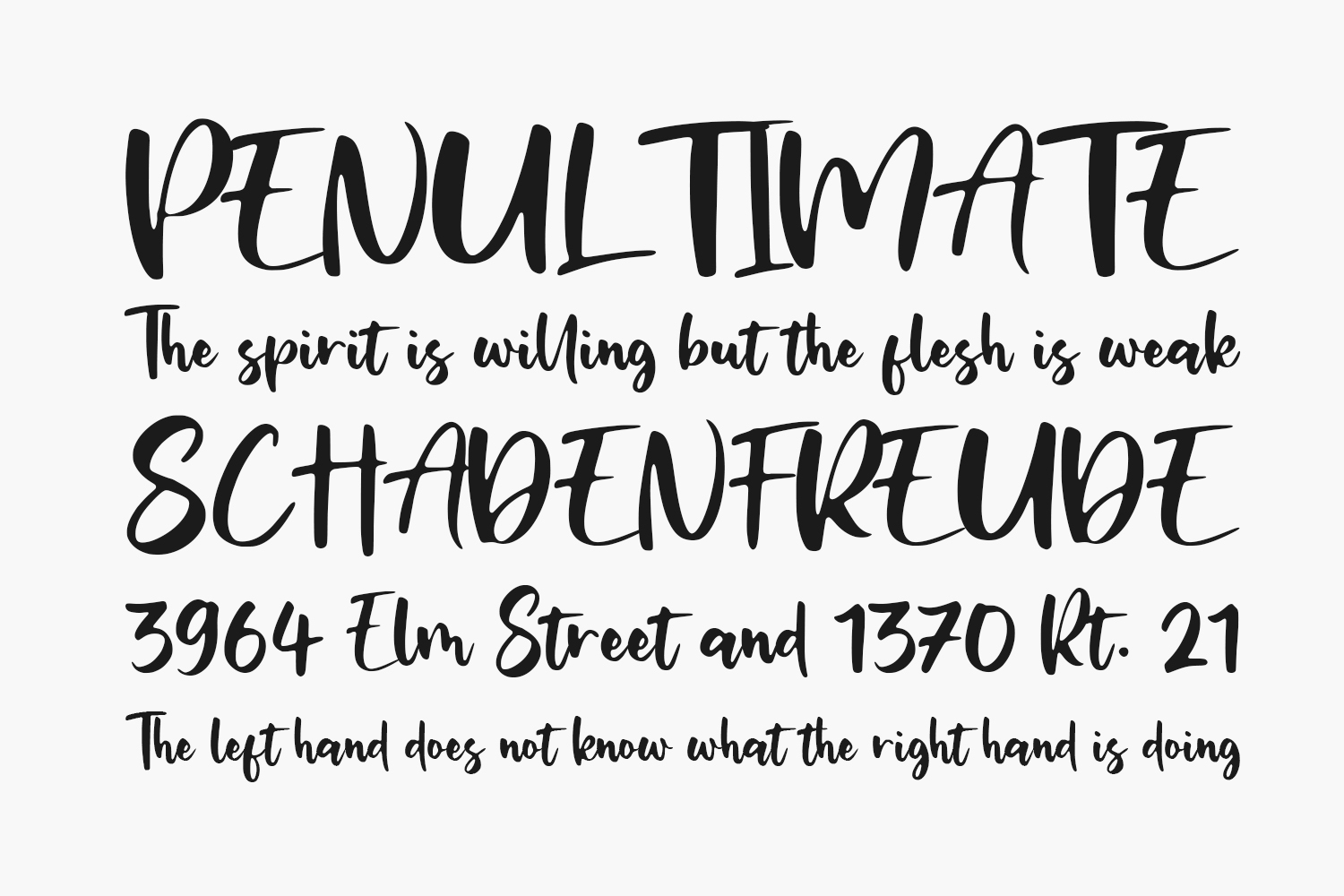
Miguelito Free Font is a beautiful, handwritten script that exudes emotion and personality with every pen stroke. Its graceful loops and elegant flourishes give each character a sense of movement and life as if the letters are dancing across the page. The font’s organic, flowing form gives it a warm and inviting feel, inviting the reader to linger and savor each word. Whether you’re looking to add a touch of romance to your love letters or whimsy to your invitations, Miguelito Free Font is the perfect choice to add a little heart and soul to your designs.